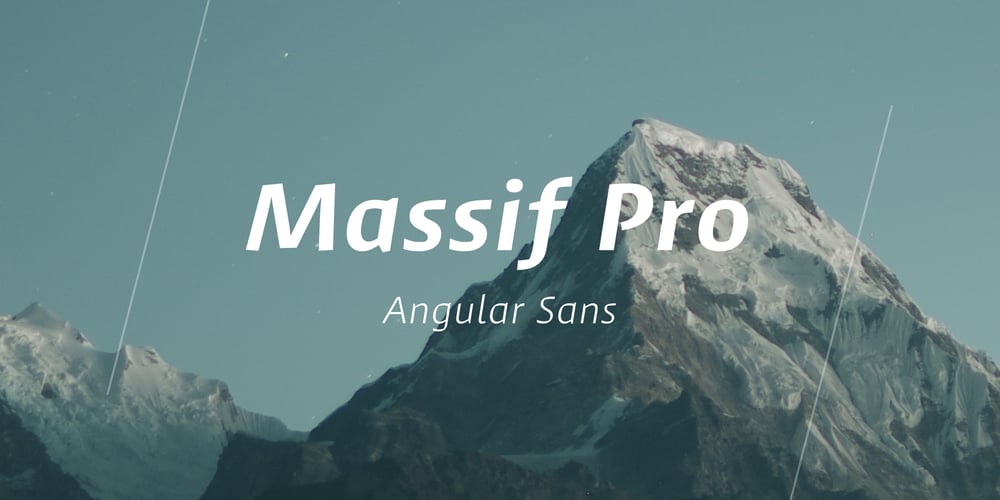
Massif Font Family was designed by Steve Matteson and published by Monotype. Massif contains 12 styles and family package options. “Designers can’t help but be inspired by the things that surround them,” says Massif’s designer Steve Matteson. An avid mountain climber, Matteson found his inspiration for his text face family in the dramatic granite formations of North America’s Sierra Nevada Mountains. Most of Matteson’s type designs are custom projects designed with an end use or customer in mind. Massif, which had no customer or specific purpose, was probably his most personal typeface to date. “My goal was to embody, in Massif’s two-dimensional letterforms, the angular tension and smooth curvature characteristic of the rugged terrain of Yosemite National Park’s Half Dome, which was formed by eons of glacial and tectonic activity,” Matteson explains. The typeface’s striking design echoes the faults and fissures that define a massif formation, resulting in a rich texture when used for body text and revealing distinctive shapes and proportions at display sizes. The Massif family comes in six weights, from Light to ExtraBold, each with an italic companion. The OpenType Pro suite contains small caps, ligatures and old style figures, and offers a small set of decorative ornaments. Pro fonts also include an extended character set supporting most Central European and many Eastern European languages.